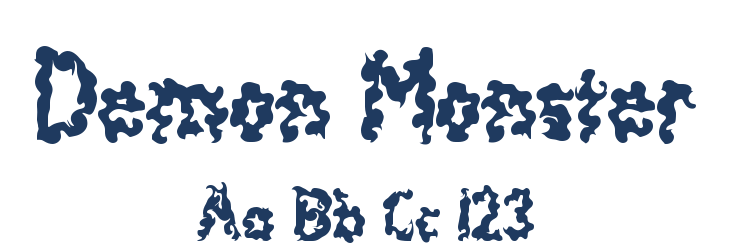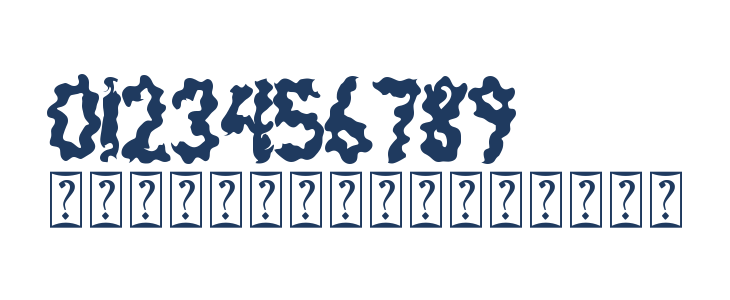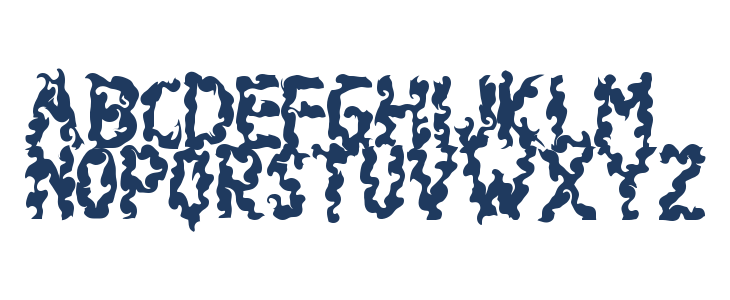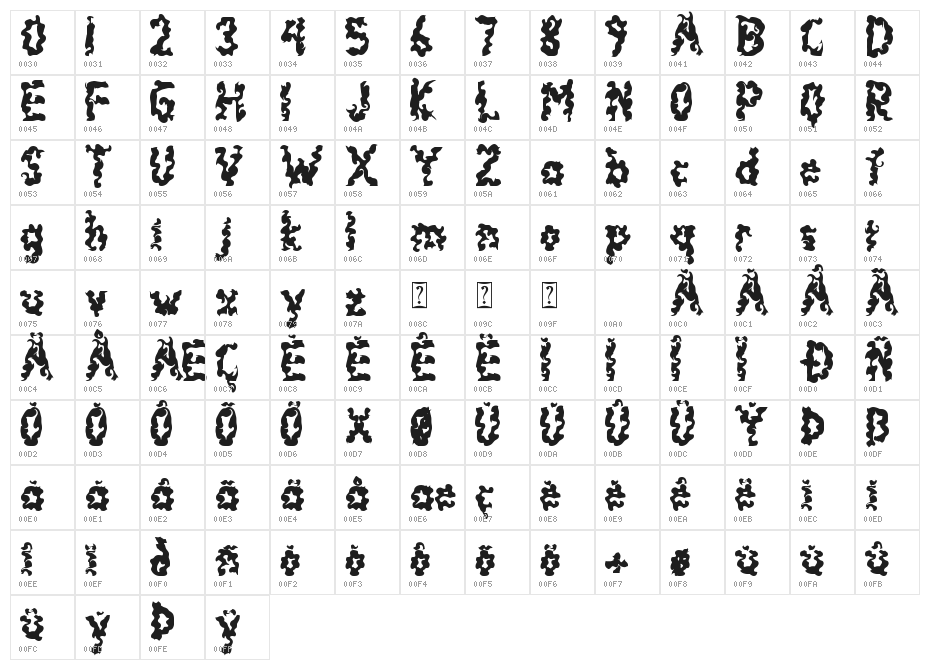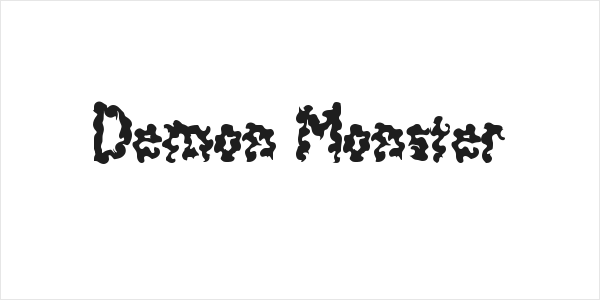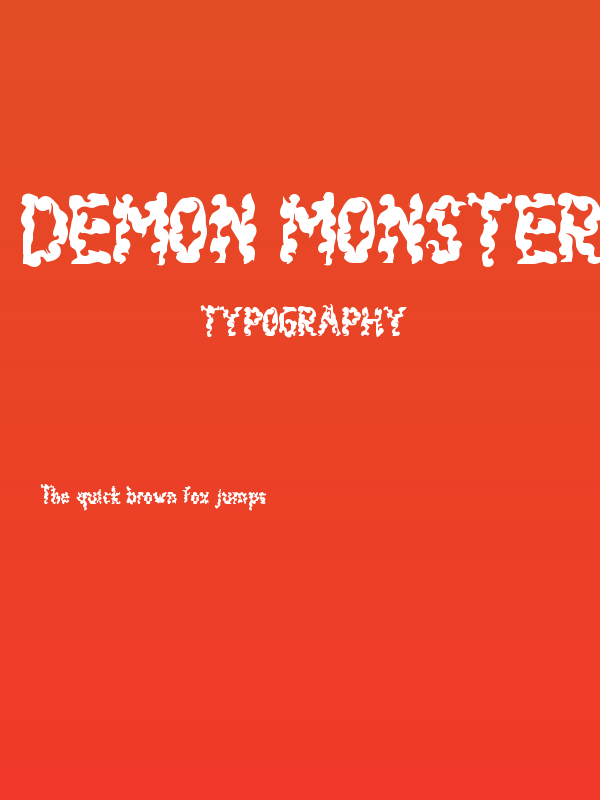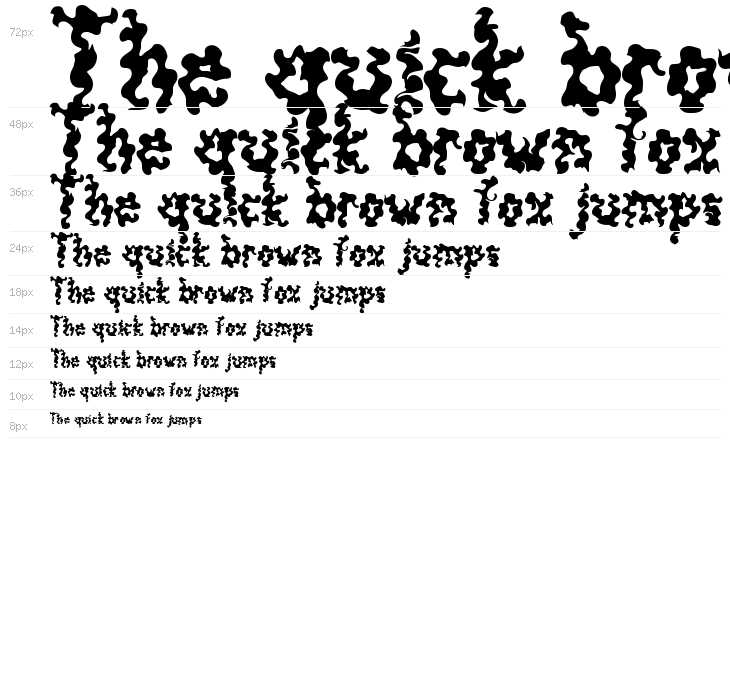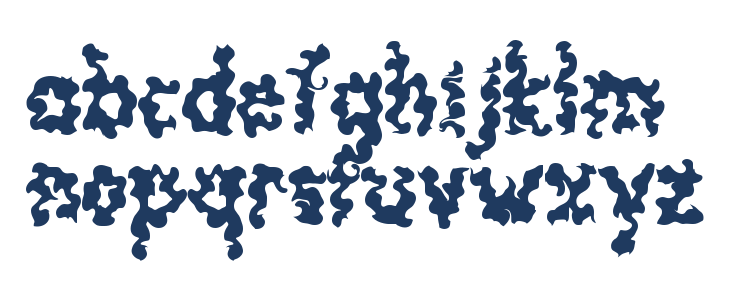
Demon Monster Font
Demon Monster Description
Highly decorative, irregular font with organic, flame-like shapes forming each character, creating a chaotic and monstrous appearance. The strokes are thick and uneven, with exaggerated curves and protrusions, giving a sense of movement and distortion.
| Overall Style | Decorative, Horror, Monster-themed |
| Use Case | Headlines, Logos, Posters, Themed graphics |
| Proposed Projects | Halloween posters, horror movie titles, haunted house flyers, themed party invitations, video game graphics. |